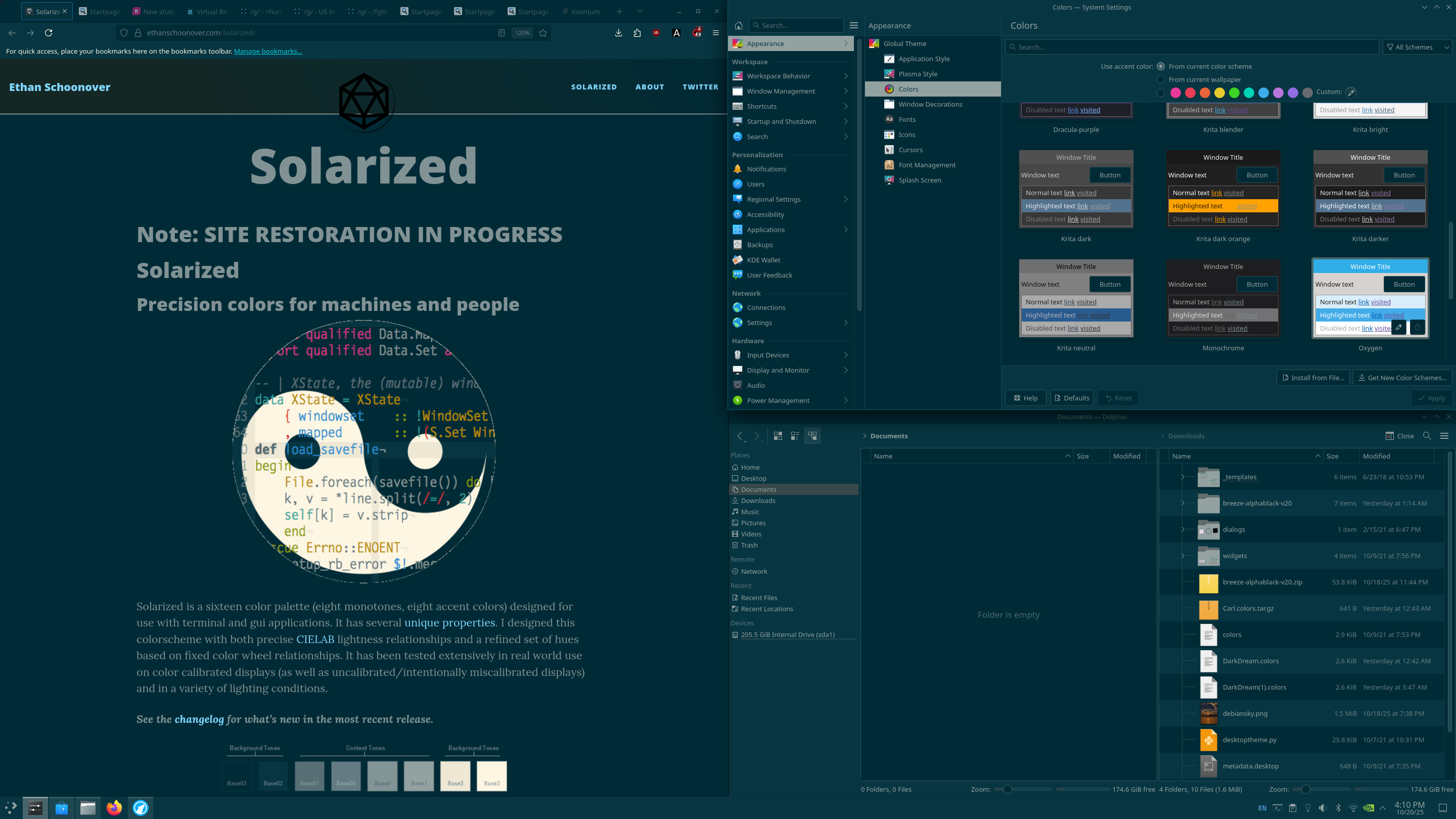
Greetings, after my recent switch to Debian 12 with KDE Plasma 5 I've entered another rabbit hole.>Color Scheme>FontThe result should be easily legible and least fatiguing. My go to has always been solid black backgrounds of varying shades with off-white text. Yesterday I came across the solarized concept and I've been giving that a go >pic rel.Here's the dude behind it and his concept.>https://ethanschoonover.com/solarized/I have yet to deep dive into fonts, but there's this site if you don't mind being data mined.>https://readabilitylab.xyz/In spite of all this I think I'm gonna go back to the old school amber monochrome look.>tldr. What font and color palette do you use for best readability?
I'd make one based on the minimal dark-grey + orange/yellow of "Krita Dark Orange", but exact highlighting for all the langs you plan to use is such a pain compared to just white on black"Gruber" comes close
>>106954399Gruvbox + Iosevka
>>106954399Everforest + Iosefka
>>106954399> solarizedAh yes, the catpuccin before catpuccin was a thing...
Gruvbox dark, source code pro for monospaced, I like fredoka as my font for the rest of the system, but you probably wouldn't.If you really want perfect monospaced fonts you need bitmap fonts like cozette, creep, or cherry though.
>>106956249>>106956068>>106956264Basically modus-vivendi + Iosevka and that's it. You don't need more than this.
>>106954399>easily legible and least fatiguingYou won't like it, but that's positive contrast polarity ("light mode"). The more light there is, the easier it is to read.
fonts: jetbrains mono, ibm plex mono, iosevka curly slab, berkeley mono*theme: nord* download from site with dev tools and use woff2 decompress, then check with fontforge; some chars may be swapped>>106956267catppuccin is jeetcoded: https://github.com/sgoudham
>>106954399i've tried many color schemes over the past decade, but I always come back to the original gruvbox. It's just so easy on the eyes—warm and mellow.
>>106954399Just use Nord or Catppuccin for color scheme
>>106959338>catppuccin is jeetcodedIt's literally just a set of colors, what could go wrong?
>>106954399bedstead goes well with terminals
>>106958512i'm not too fond of that iosevka variant, you can barely call that iosevka anymore in my opinion.
>>106959338>berkeley mono>no italics, only obliquesbleh
i like jonathan blow's custom emacs colors, there are a bunch of recreations
pink on magenta
>>106954399>solarizedThis has been around since 2011.
I've been using Source Code Pro as my font for 10 years, it clearly distinguishes the similar letters while many fonts neglect one or two.My colorscheme is custom, black text on white background, strings are blue, comments are green, functions are bolded.I think coloring everything is overrated but one thing most colorschemes get wrong is making comments gray. In my codebases comments aren't inane nonsense like "increment loop counter".
any good light themes besides solarized and gruvbox?
>>106956068ThisUI is solved
>>106959340Ambient lighting and the sensitivity of one's eyes affect the experience a lot. Most of these themes are not that good because the way they mix cold and warm tones and contrast is often an issue.I believe most of them have been created by colourblind people or people who don't actually work with a computer and text/images for 8+ hours every day.>>106959340
>>106960321Forgot: gruvbox is okay with slight adjustments. But that's individual.
>>106954399try https://www.nordtheme.com/
>>106954399i like meslo[lgs] as fontcolor scheme? eh. gentoo theme, tide shell theme, astrotheme, solarized, gruvbox... it ultimately doesn't matter that much to me i suppose
I like Catppuccin.Nord is also nice. I used that for a while.